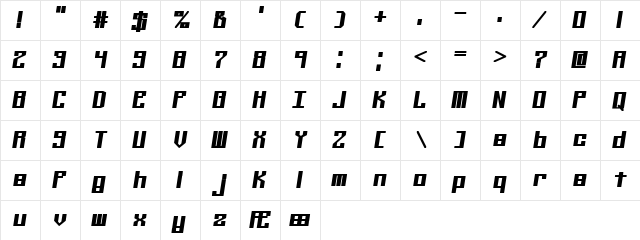
Kaliber Solid (BRK) Regular
Design Context for Kaliber Solid (BRK) Typeface
Kaliber Solid (BRK) takes a measured approach to typography — its balanced proportions and neutral character make it a reliable workhorse for both digital and print work.